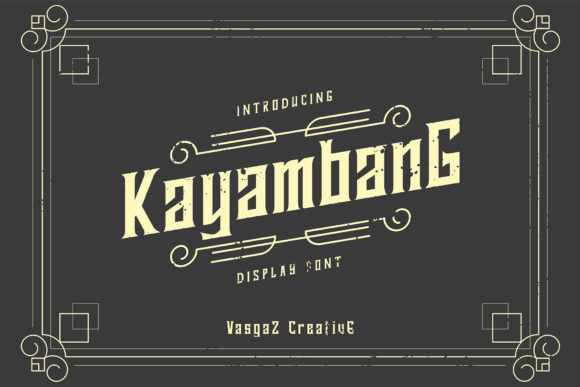
Embark on a typographic journey through time with the Kayambang Font, a breathtaking sans serif font that exudes vintage charm and captivating elegance. This font is not just a collection of letters; it's an artistic masterpiece that will transform your designs into timeless works of art.
Crafted with meticulous attention to detail by the talented font designer Vz_Type, Kayambang possesses a character that is both distinctive and versatile. Its bold strokes and playful curves create a visual symphony that will captivate your audience and leave a lasting impression.
Unleash your creativity and let Kayambang take center stage in your designs. Whether you're crafting logos, posters, branding materials, or web designs, this font will add a touch of sophistication and timeless appeal that will set your work apart from the ordinary.
With Kayambang as your design companion, you'll have the power to evoke nostalgia, create a sense of authenticity, and connect with your audience on a deeper level. Its vintage charm will transport them to a bygone era, while its modern sensibility ensures that your designs remain fresh and relevant.
Immerse yourself in the world of Kayambang and discover a font that is not just a tool, but an experience. It's a journey through time, a celebration of beauty, and an invitation to create designs that will resonate with your audience for years to come.